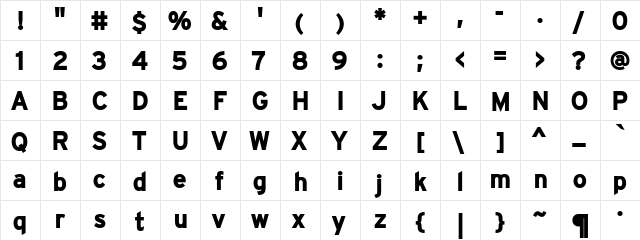
IntraStateHighwayUltraBlack Regular
Design Context for IntraStateHighwayUltraBlack Typeface
IntraStateHighwayUltraBlack takes a measured approach to typography — its balanced proportions and neutral character make it a reliable workhorse for both digital and print work.